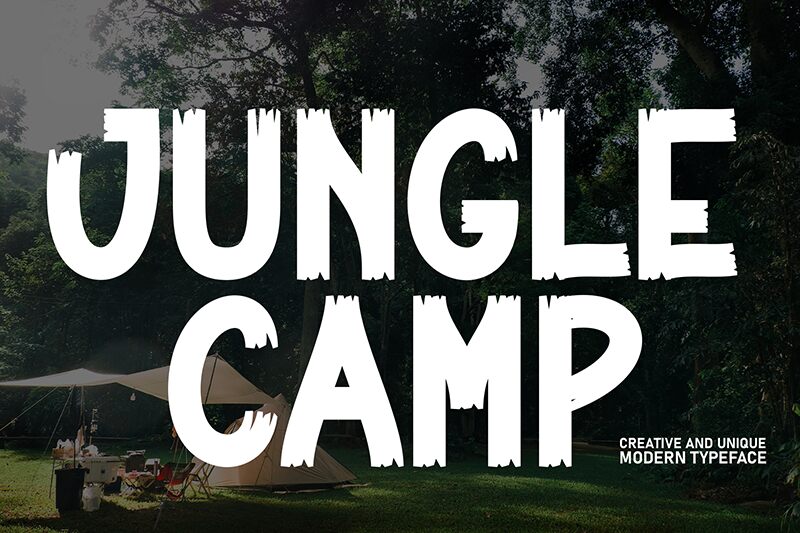
Jungle Camp
Jungle Camp font is a brush textured font designed by Scratchones with bold weight. This unique typeface captures the essence of nature, turning it into an expressive means for brands and designers. Its organic feel manifests within each letter; while some have rugged features, others are extremely sharp, presenting a different technique for particular projects and themes.
The free brush font can be used for posters which require both legibility and style or for branding presentations to add that natural fresh touch. Those who chose to include Jungle Camp can also add it to packaging designs, apparel items, greetings cards or invitation cards.